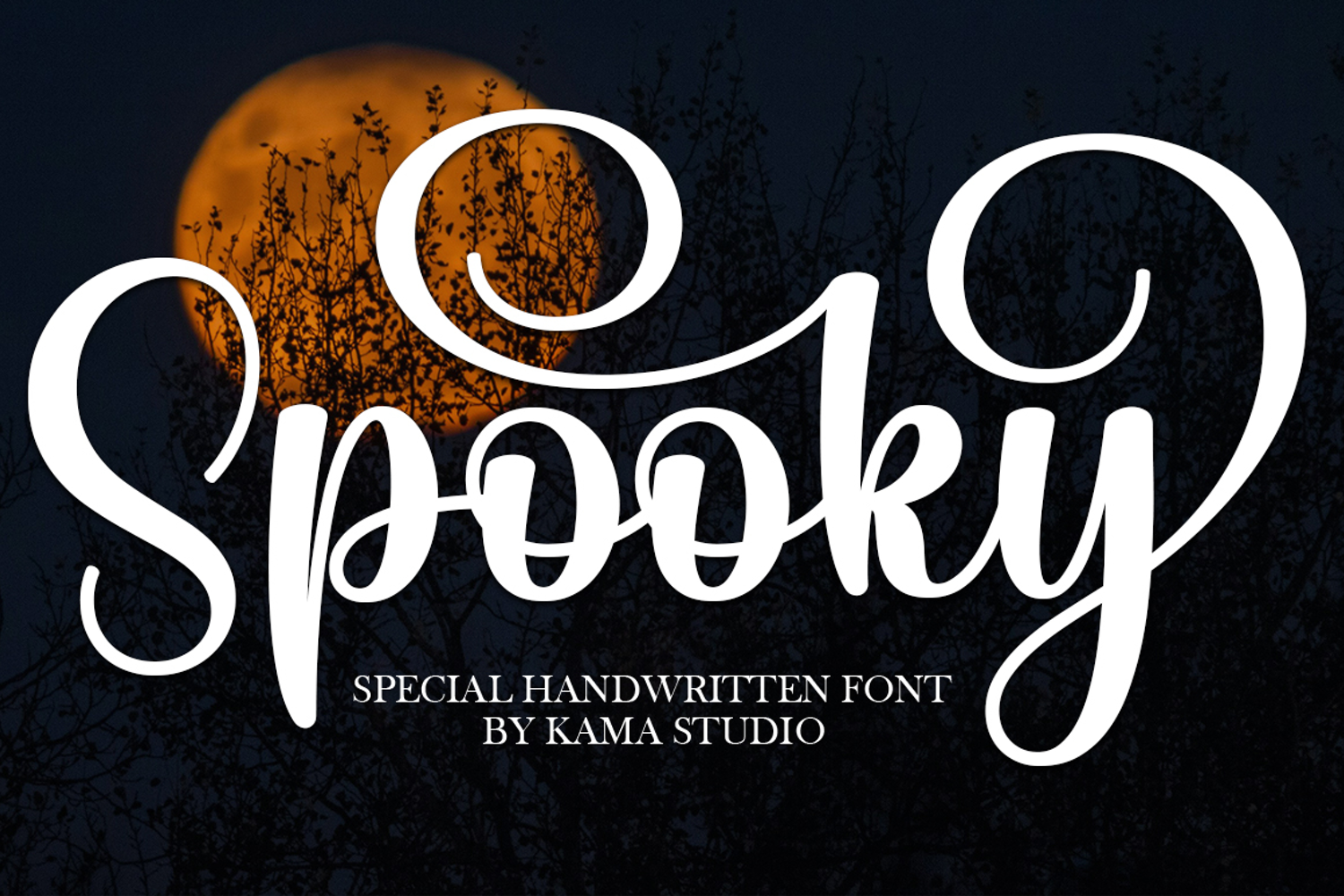
Introducing Spooky, a sublime and evocative typeface defined by its softness and sophistication. Its fluid flourishes and delicate touches enhance the aesthetic appeal of any design endeavor, infusing it with an upscale feel. Perfectly suited for branding, dynamic headlines, luxury wedding designs, personalized invitations, standout signage, impactful logos, distinctive labels, and beyond. Spooky is not just a font- it’s a placemaker, turning every design project into a marvel of elegance.
Spooky